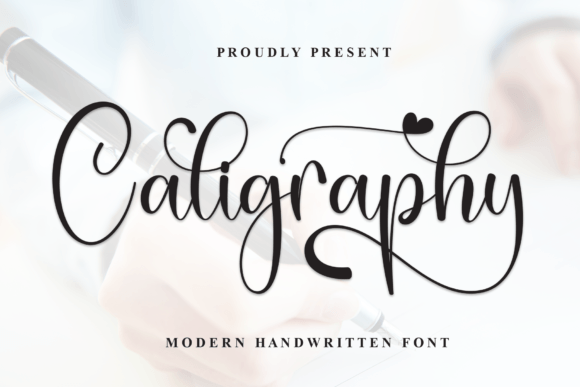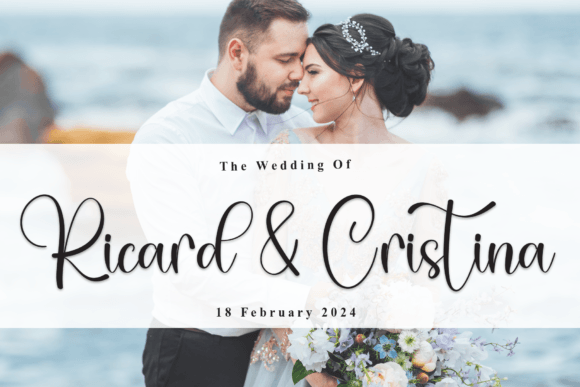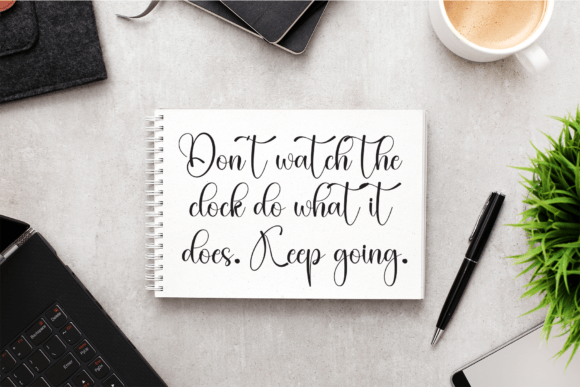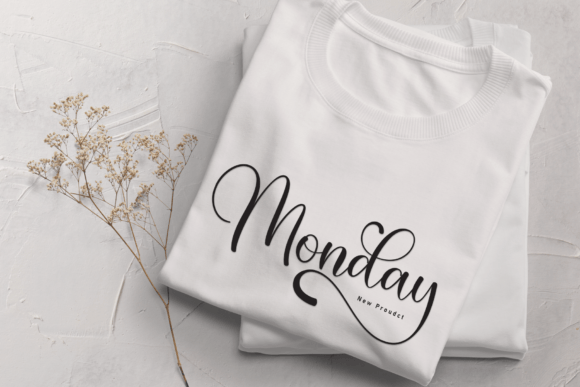
Caligraphy Font
About the Caligraphy Font
Elevate your designs with Caligraphy Font, a font that combines sophistication with readability. Caligraphy is a magical script font carefully created with a touch of elegance. Whether you’re looking for fonts for Instagram or calligraphy scripts for DIY projects, this font will turn any creative idea into a true piece of art!
Caligraphy excels in applications requiring a touch of refined elegance, such as short headlines, logotypes for luxury brands, or invitations. Its delicate forms also work well on packaging for high-end products or in short, impactful quotes within marketing materials. However, its intricate detail makes it unsuitable for body text or UI elements where readability is paramount. Extended use could strain the eye.
Pairing Caligraphy with a clean sans-serif like Lato for body text provides excellent contrast and readability. For a more traditional feel, a complementary serif font such as Garamond would enhance its sophisticated personality. Avoid pairing it with overly decorative fonts, which would clash with its refined aesthetic.
Caligraphy projects an air of sophisticated elegance, best suited for brands aiming for a premium and refined image. Its personality is best described as graceful and refined, rather than bold or playful.
Caligraphy Font Usage Examples
Caligraphy Font Example